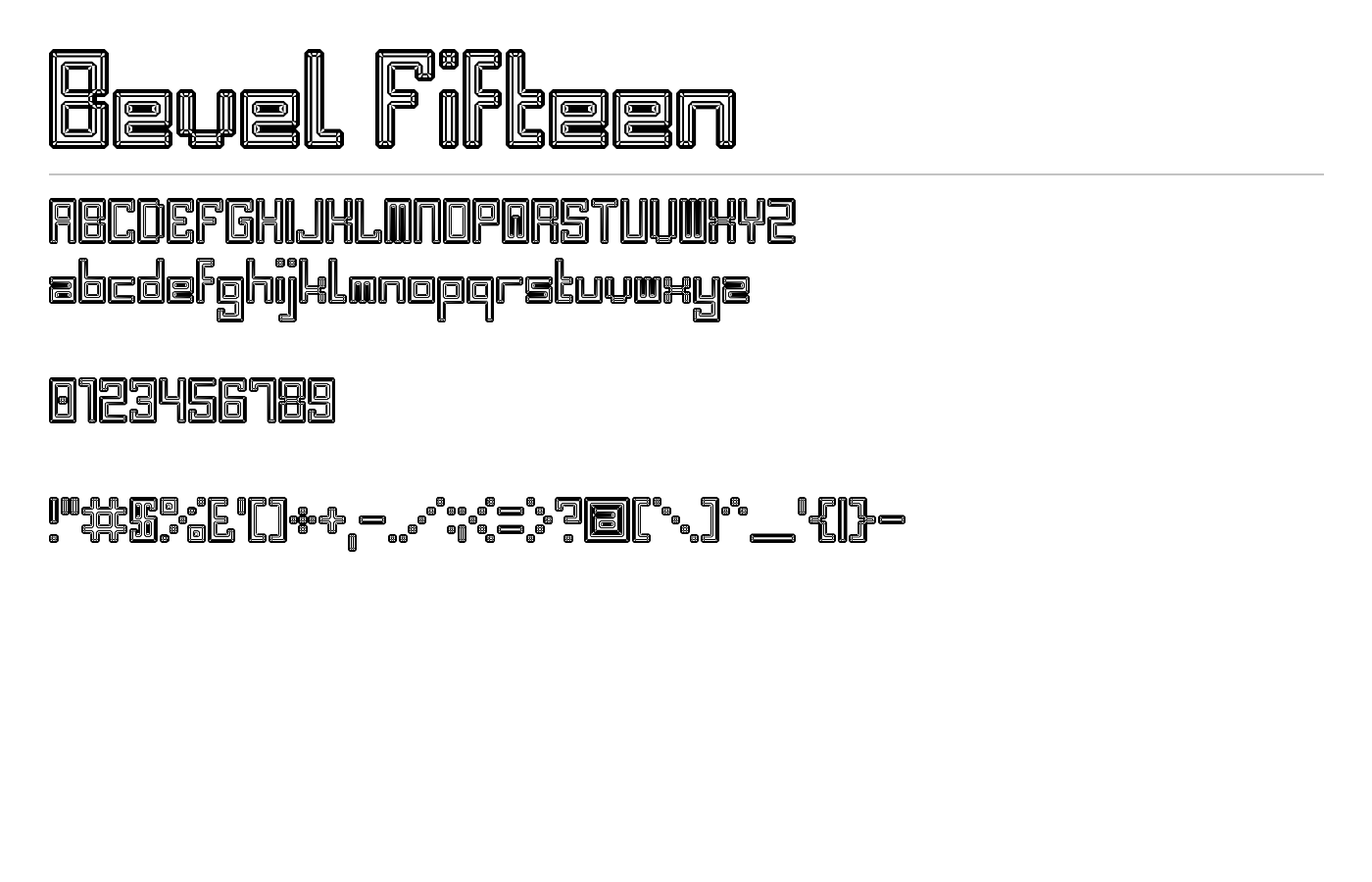
Bevel Fifteen is a distinctive sans serif font characterized by its narrow, geometric letterforms with a unique layered bevel effect that gives a three-dimensional, outlined appearance. This font has a modern, futuristic vibe that works well for tech, gaming, or digital-themed branding and displays boldly in headlines and logos where a striking, unconventional look is desired. Its intricate style adds visual interest, making it ideal for eye-catching titles rather than body text.
Bevel Fifteen Font
About Bevel Fifteen Font
| Designer | NAL |